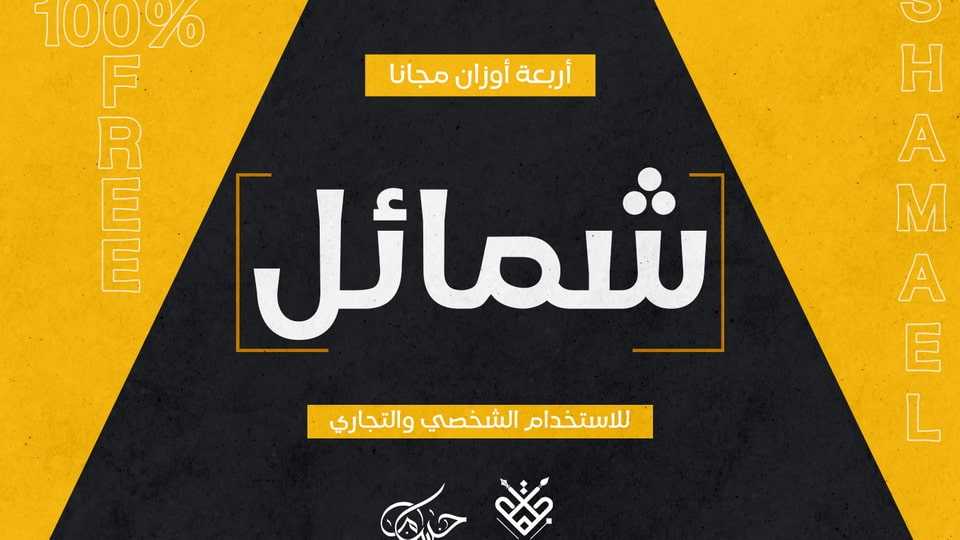
Download DG Shamael font, a sans serif typeface that features clarity, readability and simplicity. DG Shamael is a versatile typeface and works perfect both for text and display use.
Designer: Hossam El Deen Ahmed